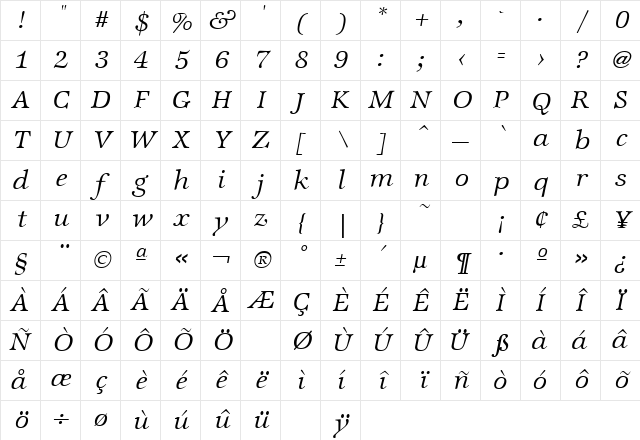
Complete Zapf International Light Italic glyph index. Displaying only characters natively supported by Zapf International Light Italic font.
Zapf International Light is a composed and adaptable typeface that performs quietly and consistently across a wide range of design contexts. The slanted form adds forward momentum and visual energy. Its slender proportions lend an understated elegance to any composition.